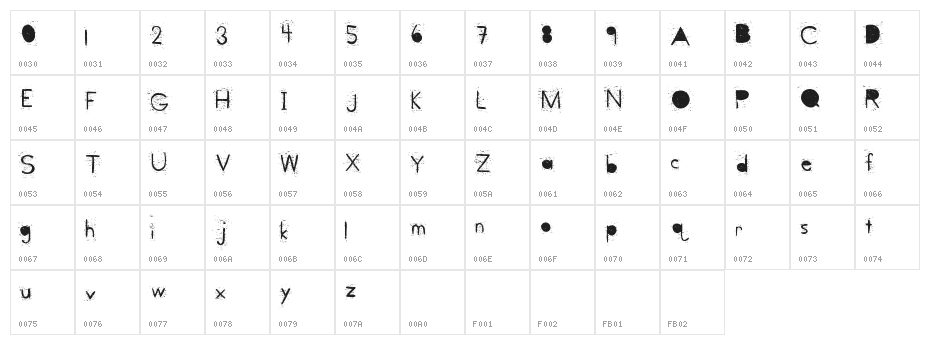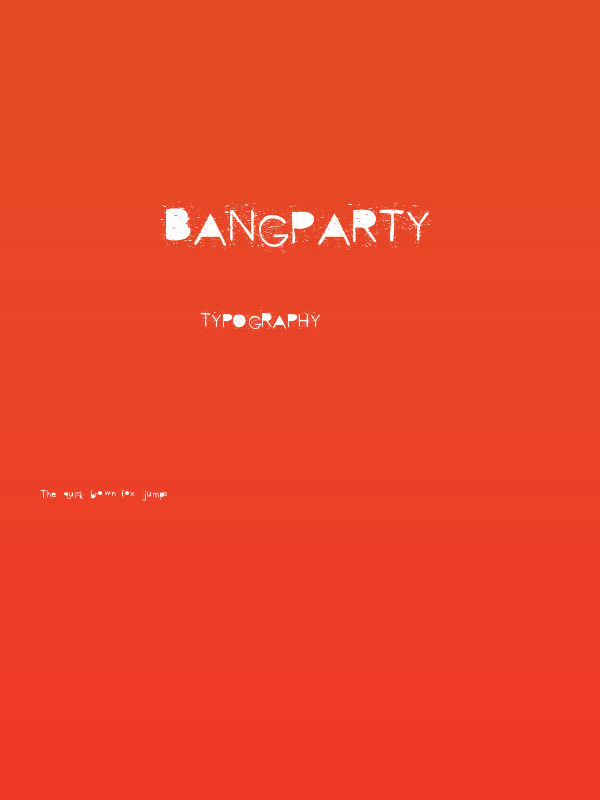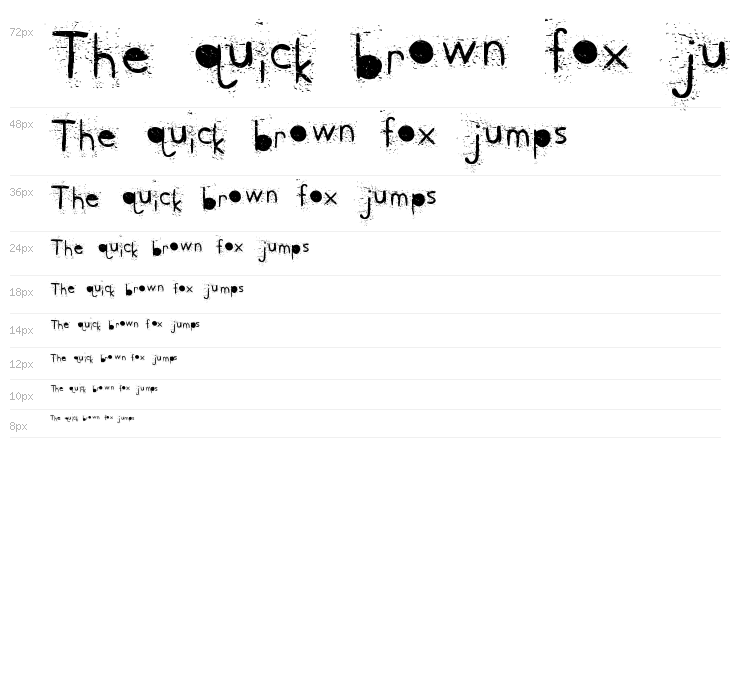
BangParty Font
BangParty Description
This font features a distressed, textured appearance that gives it a grungy and edgy feel. The uppercase letters are bold and slightly irregular, with a hand-drawn quality that adds to its unique character. The lowercase letters maintain this style, with some characters having elongated or exaggerated features. Numbers and special characters follow the same aesthetic, ensuring consistency across all glyphs. The overall design is playful yet rugged, making it suitable for projects that require a bold statement.
| Overall Style | Grunge, Edgy, Playful |
| Use Case | Headlines, Posters, Branding |
| Proposed Projects | Ideal for music album covers, event posters, streetwear branding, and any project needing a bold, edgy aesthetic. |